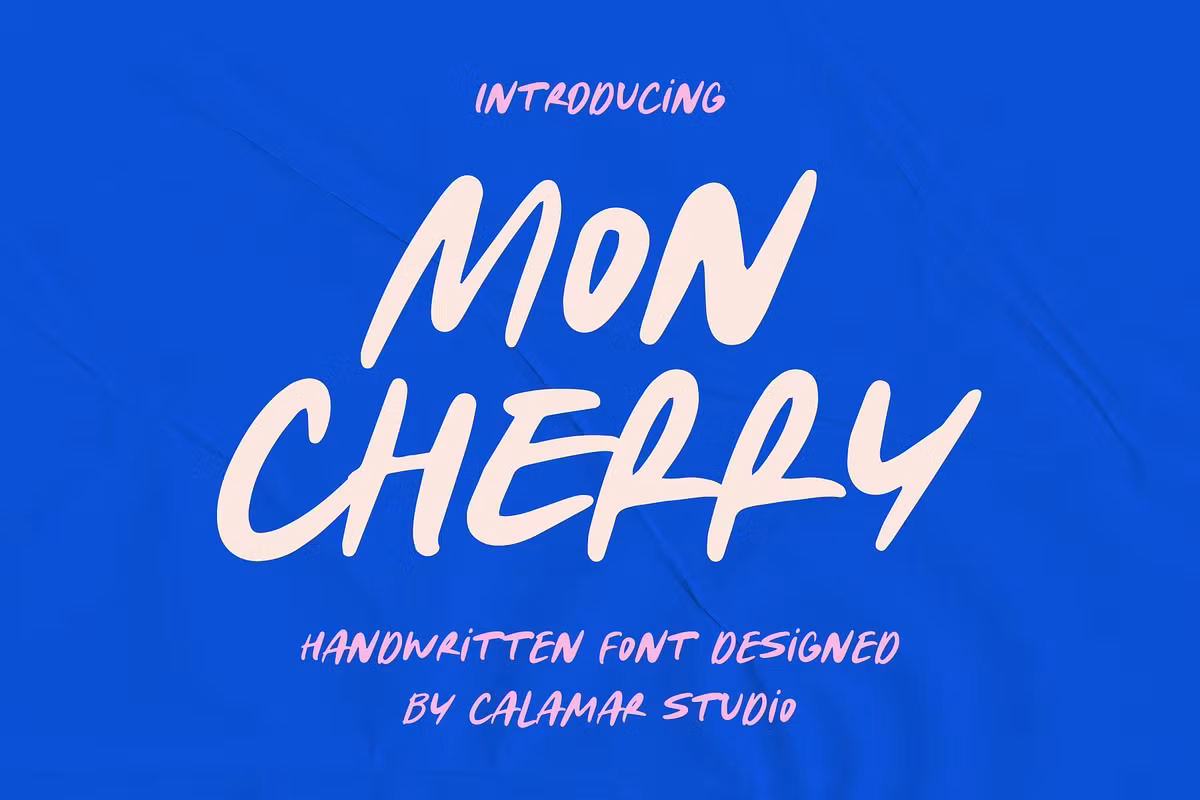
Mon Cherry | Handwritten Groovy Font Free Download
Mon Cherry | Handwritten Groovy Font Free Download is a fun, retro-inspired typeface that blends groovy 70s vibes with a playful handwritten twist. With bouncy baselines, chunky curves, and a carefree energy, this font is perfect for vintage posters, quirky branding, product packaging, social media graphics, and creative DIY projects that need a bold and cheerful personality.
Mon Cherry | Handwritten Groovy Font Free Download captures a nostalgic charm while staying fresh and modern. It’s packed with character and ideal for designs that want to stand out with a feel-good, retro flair. Great for headlines, logos, and statement pieces!